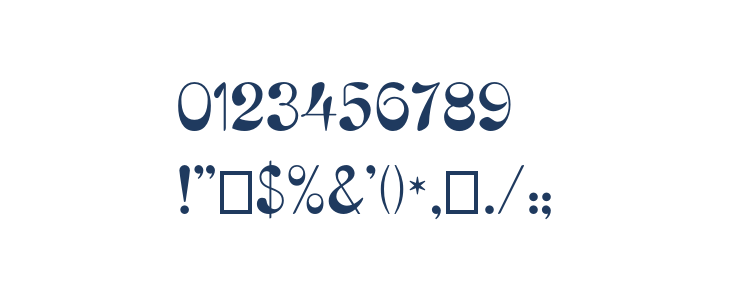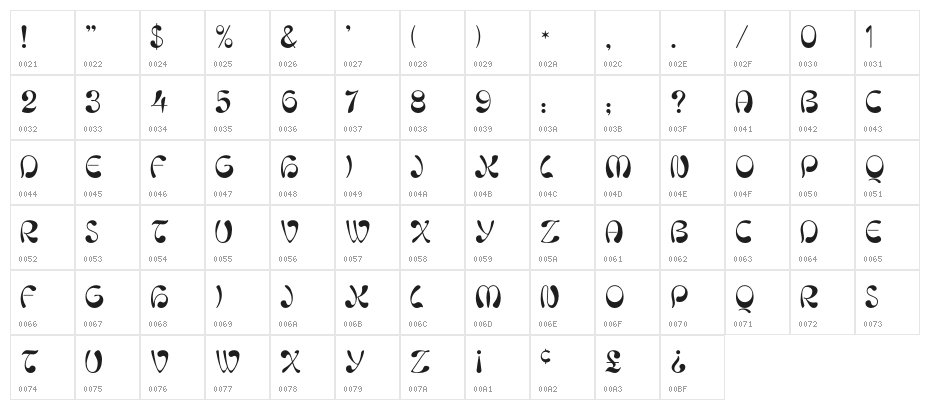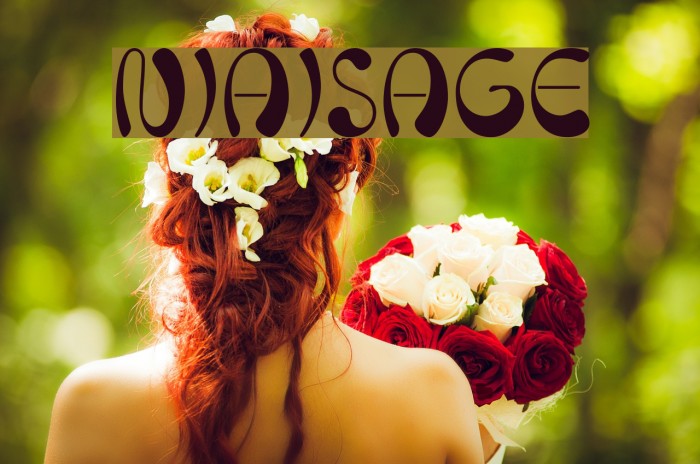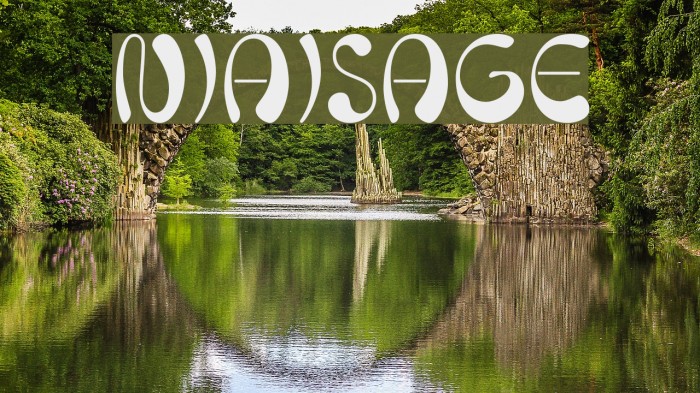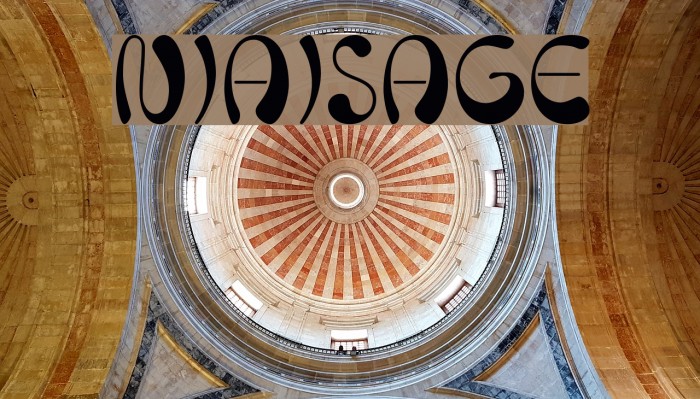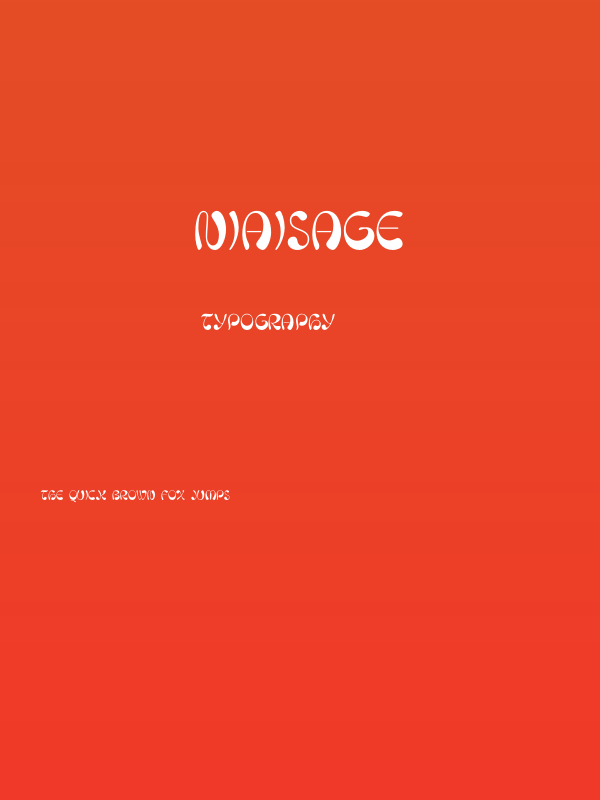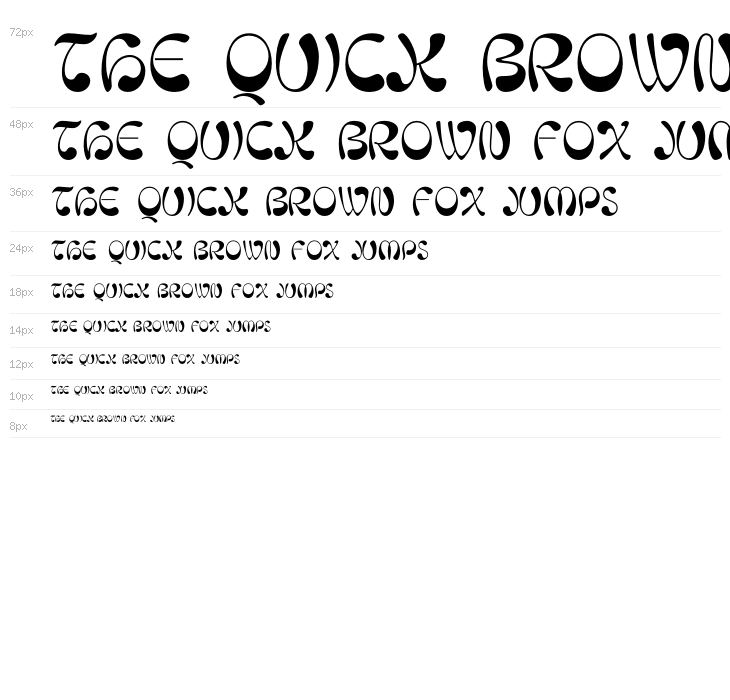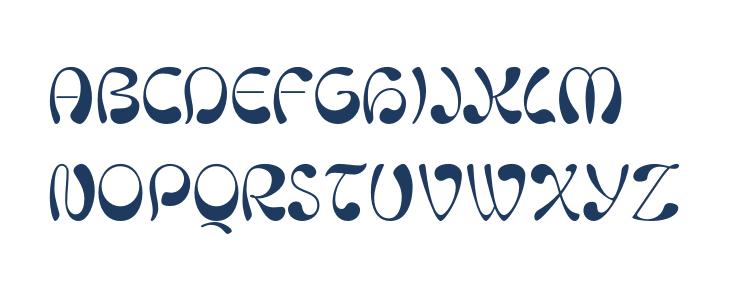
Niaisage Font
Niaisage Description
This font features a unique and artistic design with bold, flowing curves and a high contrast between thick and thin strokes. The characters have a whimsical, almost calligraphic style, with exaggerated curves and loops that give it a playful and dynamic appearance. The uppercase and lowercase letters maintain a consistent style, with the lowercase letters being slightly more compact. The numbers and special characters are designed to match the overall aesthetic, ensuring a cohesive look across all glyphs. This font stands out with its decorative flair, making it ideal for creative and eye-catching designs.
| Proposed Projects | Ideal for branding, posters, artistic projects, and any design that requires a bold, decorative touch. |